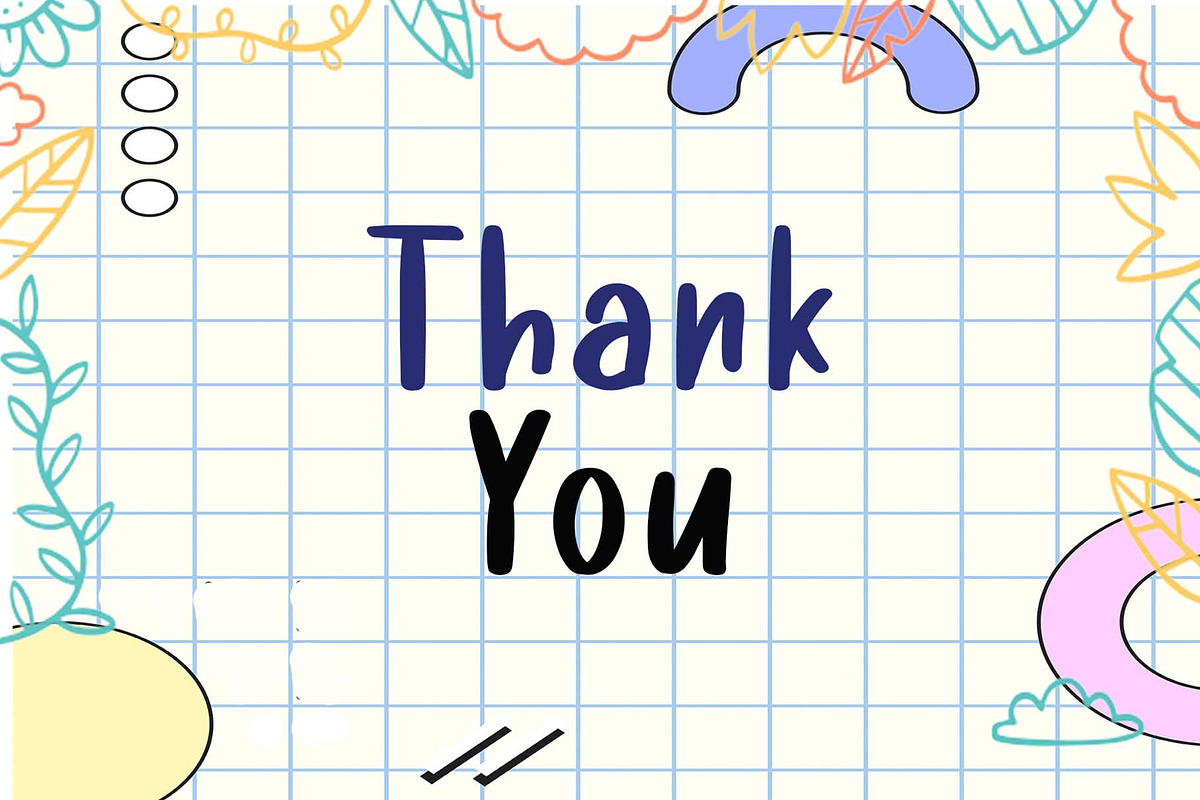
Super Tramp
Super Tramp is a Handwritten Style font by Wildan Type. It has flowing letters that will give your designs a unique and sweet look. Super Tramp font is perfect; logos, greeting cards, a package design, a brand identity, craft design, any DIY project, book title, wedding invitation, packaging, and more.